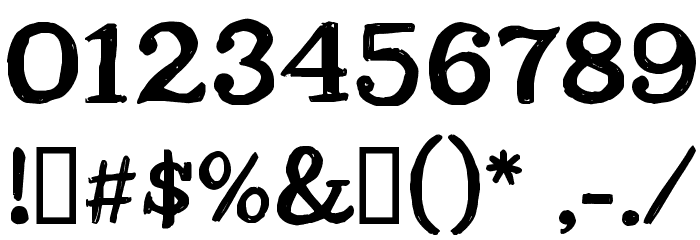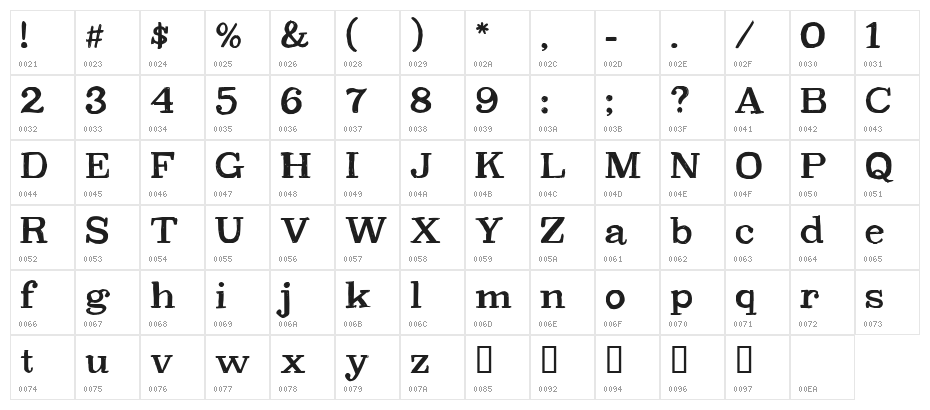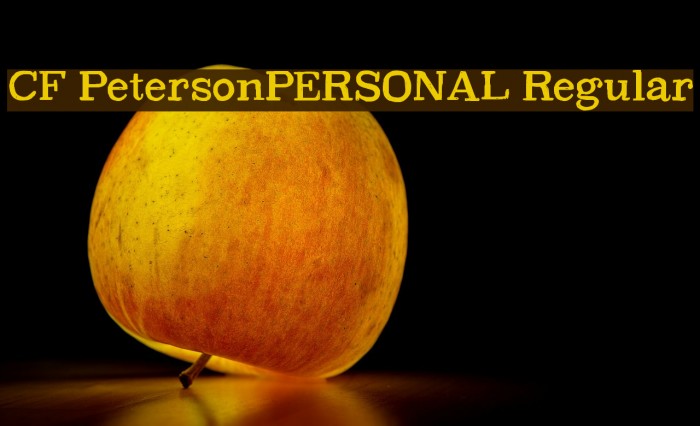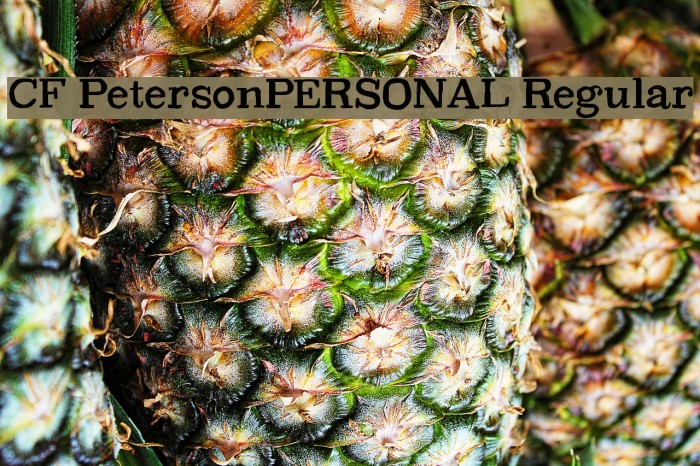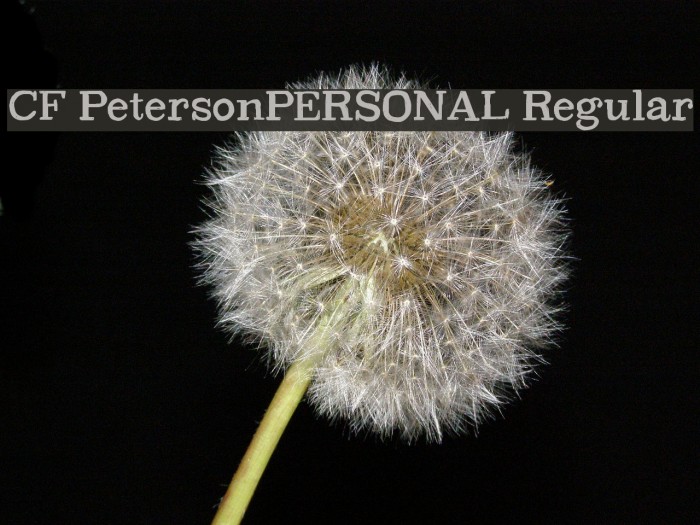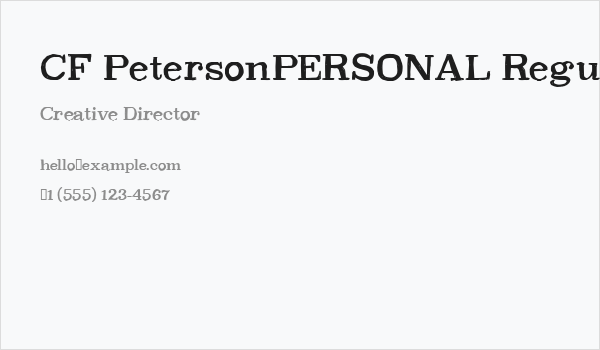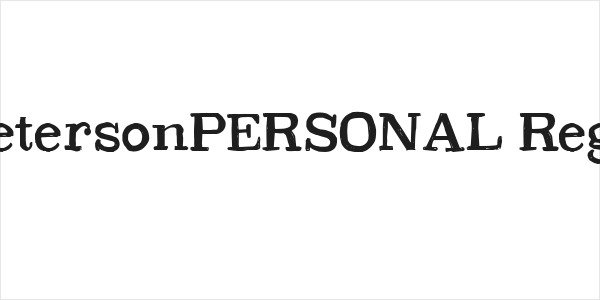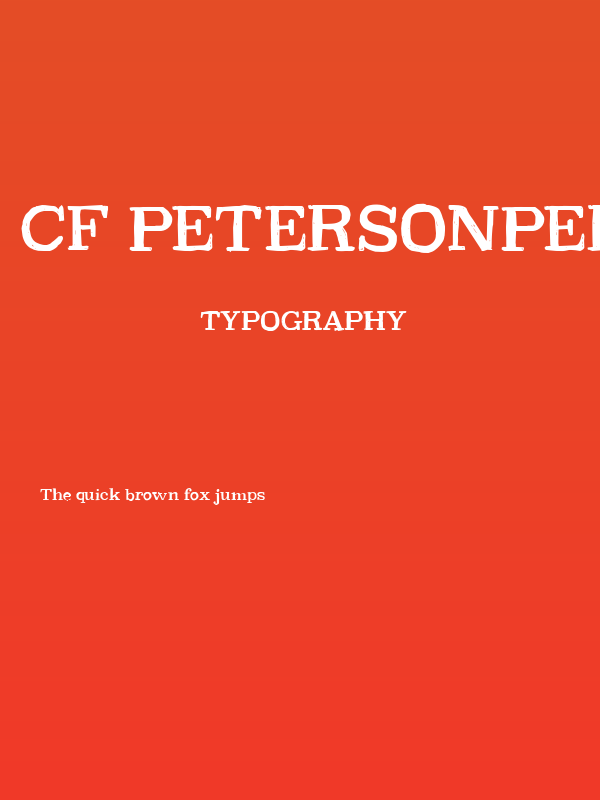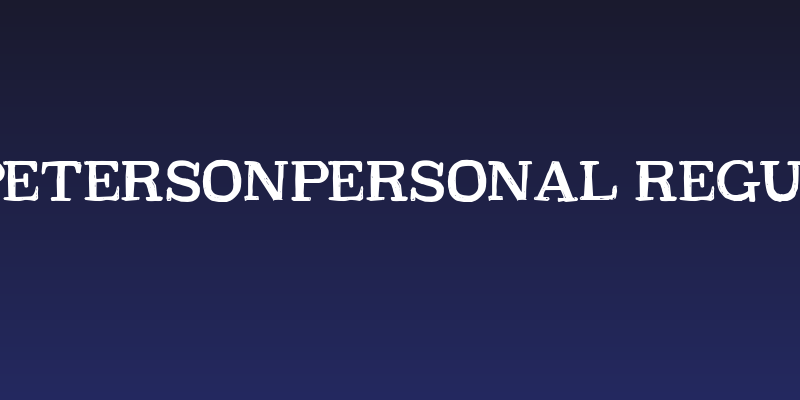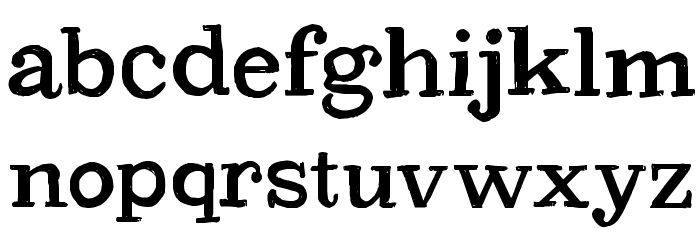
CF PetersonPERSONAL Regular Font
CF PetersonPERSONAL Regular Description
This font exhibits a classic serif style with a strong, bold presence. The characters are well-defined with thick strokes and subtle serifs that add a touch of elegance and tradition. The uppercase letters are robust and commanding, while the lowercase letters maintain a consistent style with slightly rounded edges. The numerals are clear and legible, making them suitable for various applications. Special characters are distinct and maintain the overall aesthetic of the font. The font's design is reminiscent of traditional print, offering a sense of reliability and authority.
| Proposed Projects | Ideal for book covers, editorial design, branding, and formal invitations. |